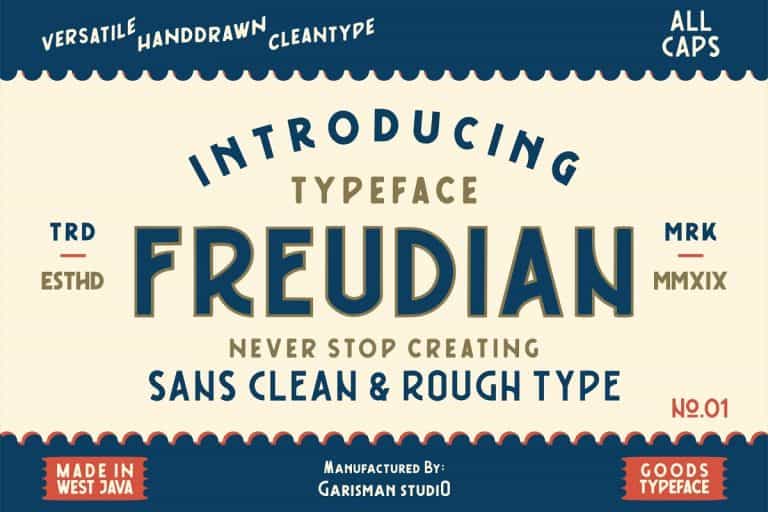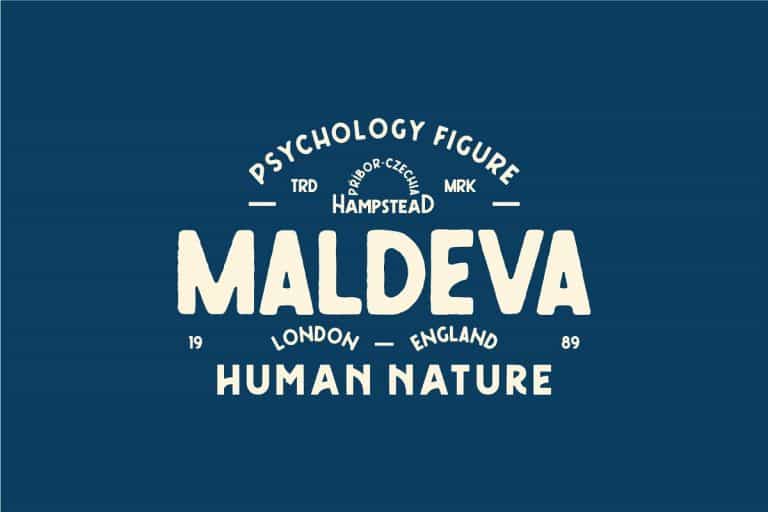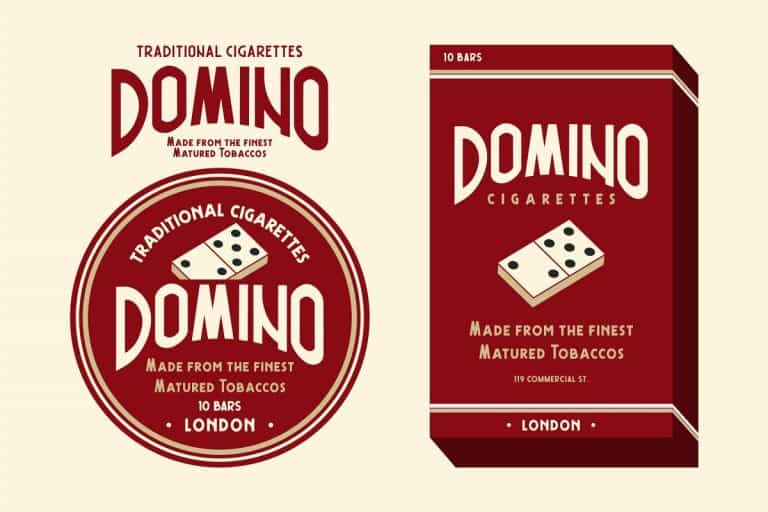
Discover Freudian Typeface, part of the Sans Serif Display Retro collection—a versatile and unique font perfect for adding a personal touch to your projects. Download it for free and enjoy crafting designs with style, from invitations to social media posts. This font is available exclusively for personal use, giving you the freedom to create without limits. Unlock your creativity with Freudian Typeface today!
Introducing Freudian Typeface. This font has a sense of old, traditional, and hand-made look. Already PUA Encoded and I think this font is ideal for those who are into the vintage look or handdrawn logo. This is a perfect choice for any graphic designs like branding materials, t-shirt, print, business cards, logo, poster, tshirt, photography quotes. etc.